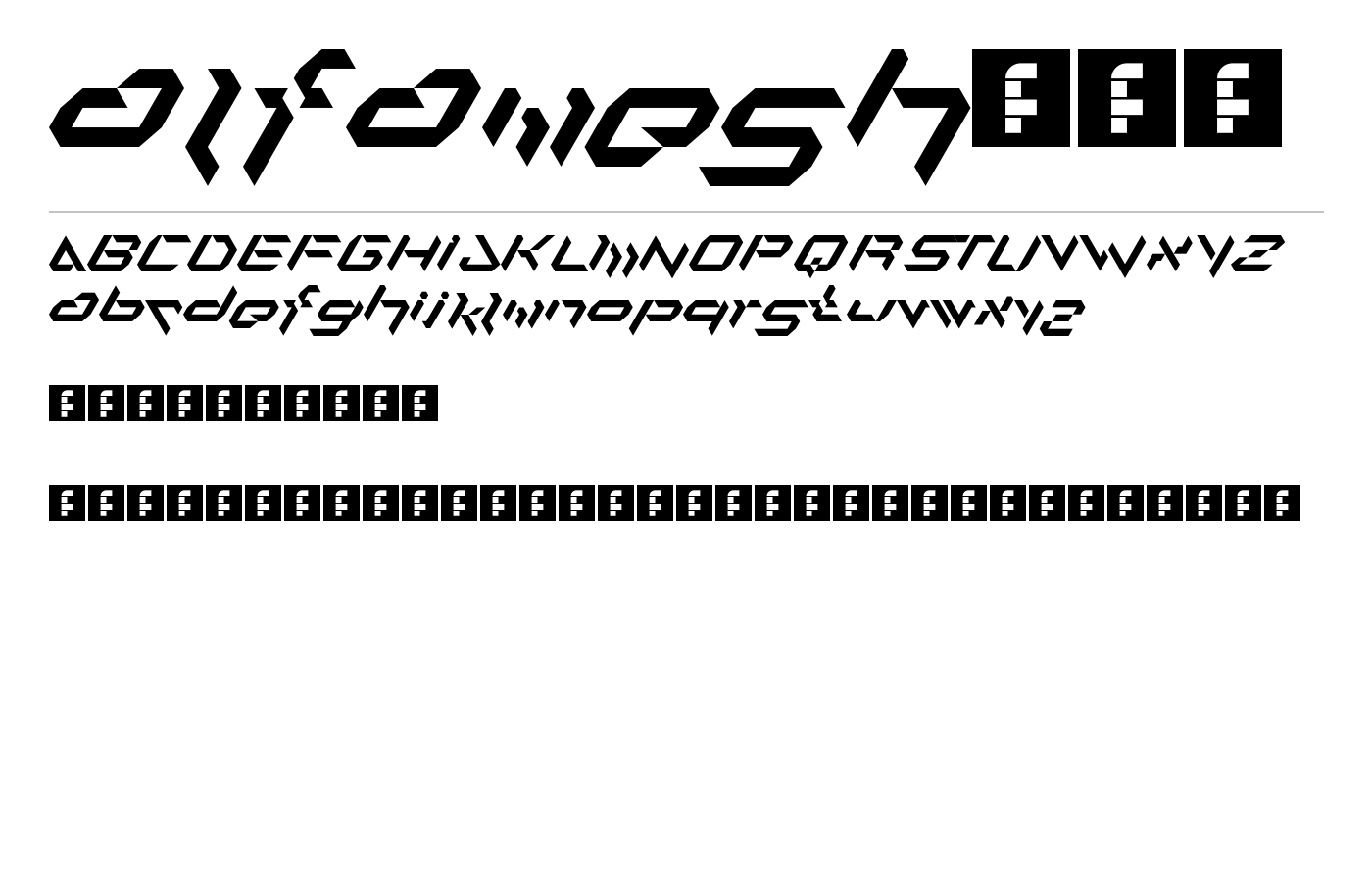
Alfamesh001 is a bold, futuristic sans serif font with a strong angular and geometric style. Its sharp, almost techno-inspired letterforms with consistent stroke weight and a moderately condensed width give it a dynamic, high-tech personality ideal for modern branding, sci-fi themes, or digital media headlines. This font stands out in logos and display uses where a cutting-edge, innovative impression is desired.
| Font family | alfamesh001 Font |
| Designer | nevvgeneva |